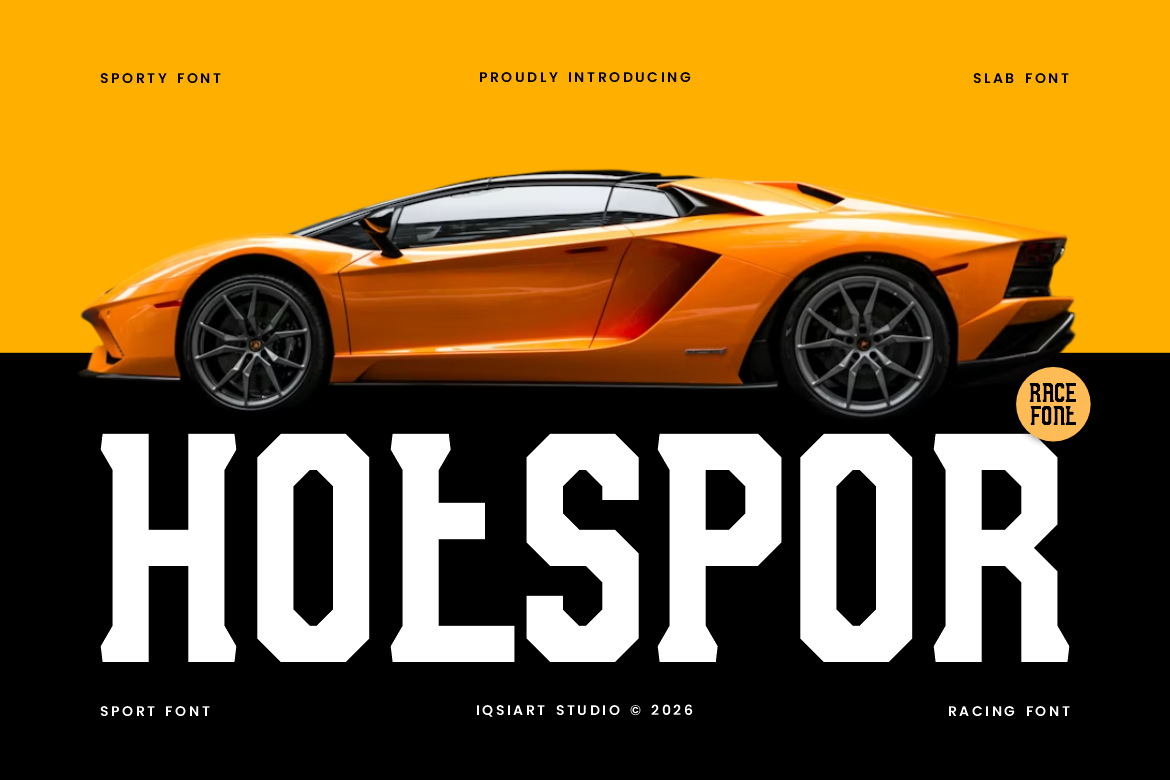
Hotspor - Sport Racing Font
Hotspor Font is a bold and authentic display typeface that suits a variety of design needs. We offer a wide range of themes and font styles — visit our profile to explore more and find the perfect style for your project.